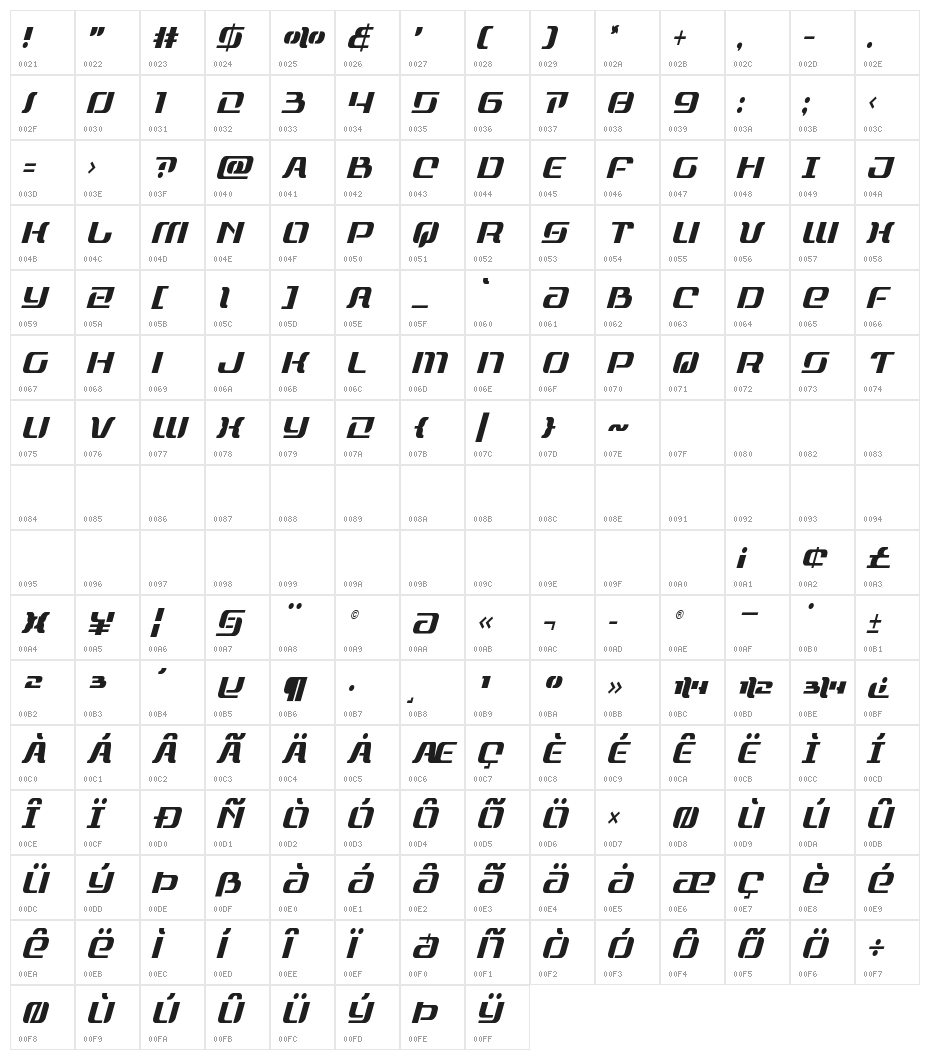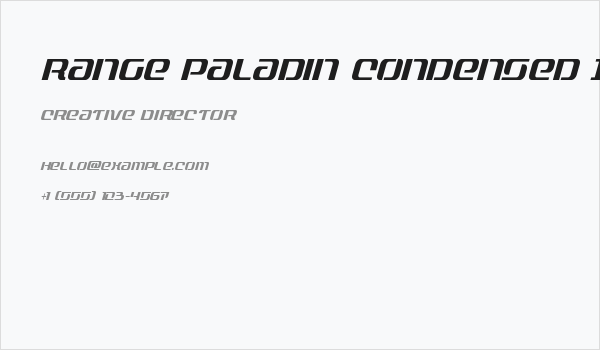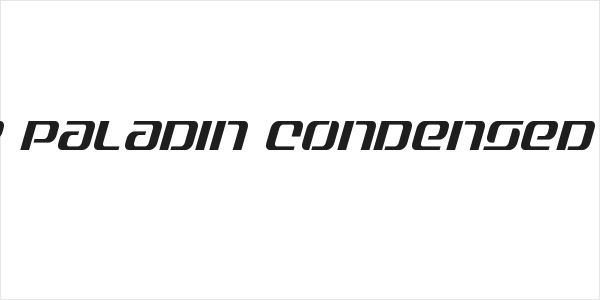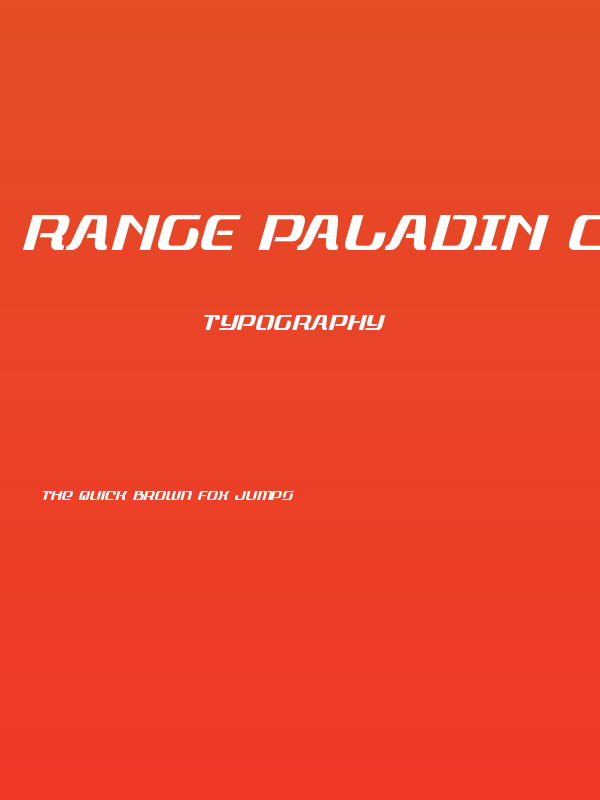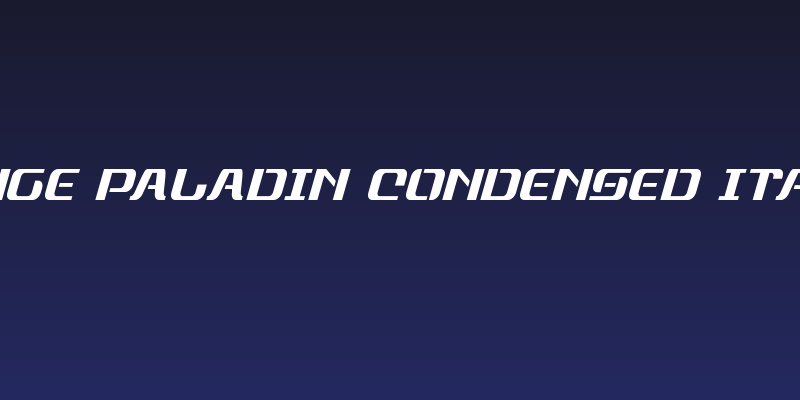
Range Paladin Condensed Italic Font
Range Paladin Condensed Italic Description
This font features a sleek, modern design with a condensed and italicized style. The characters are bold and angular, giving a futuristic and dynamic appearance. The uppercase and lowercase letters maintain a consistent slant, enhancing the italic effect. Numbers and special characters are designed to match the overall aesthetic, with sharp edges and a streamlined look. The font's condensed nature allows for efficient use of space, making it suitable for projects where space is limited but impact is needed.
| Proposed Projects | Ideal for technology branding, sports team logos, and dynamic advertising materials. |